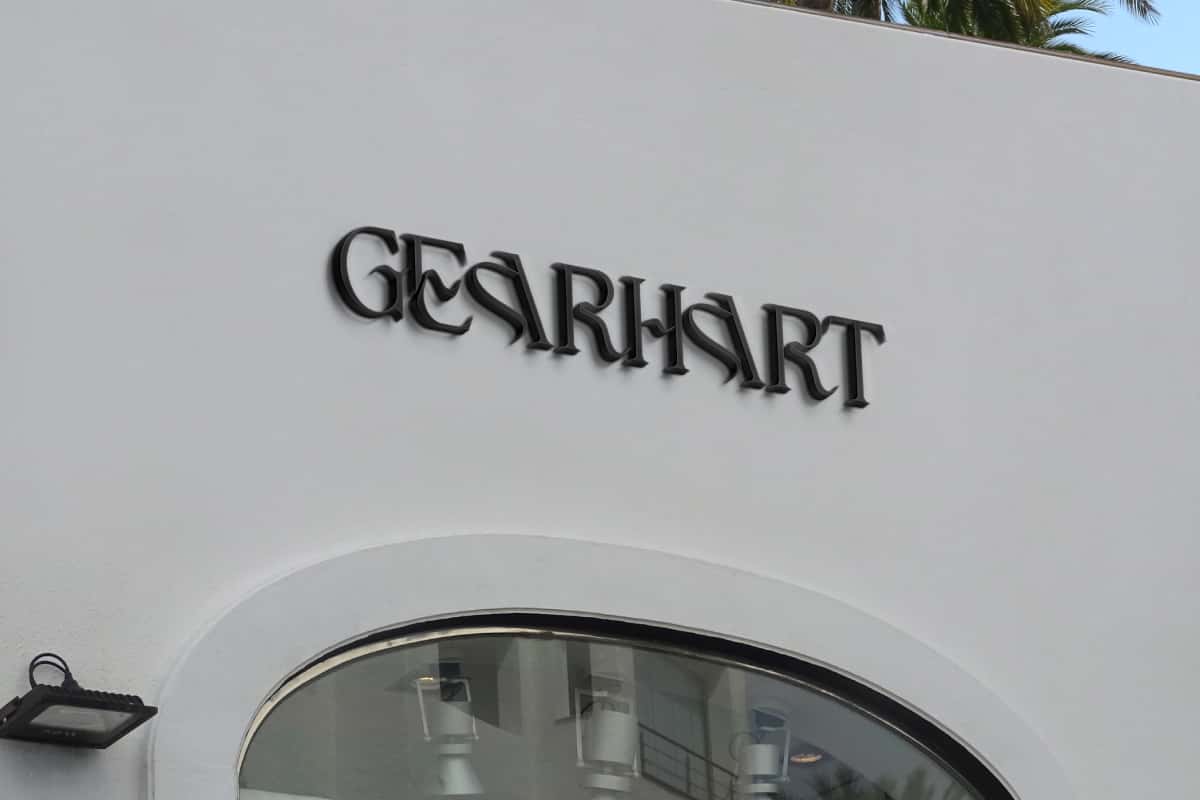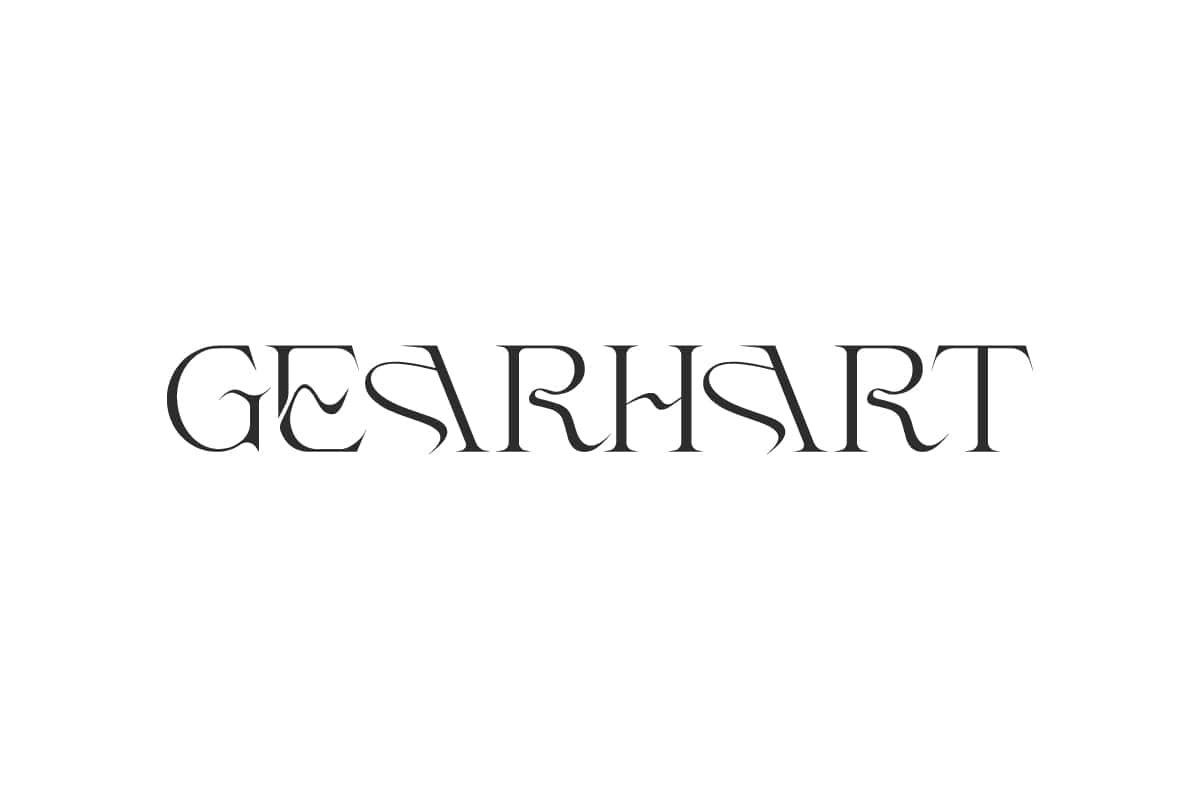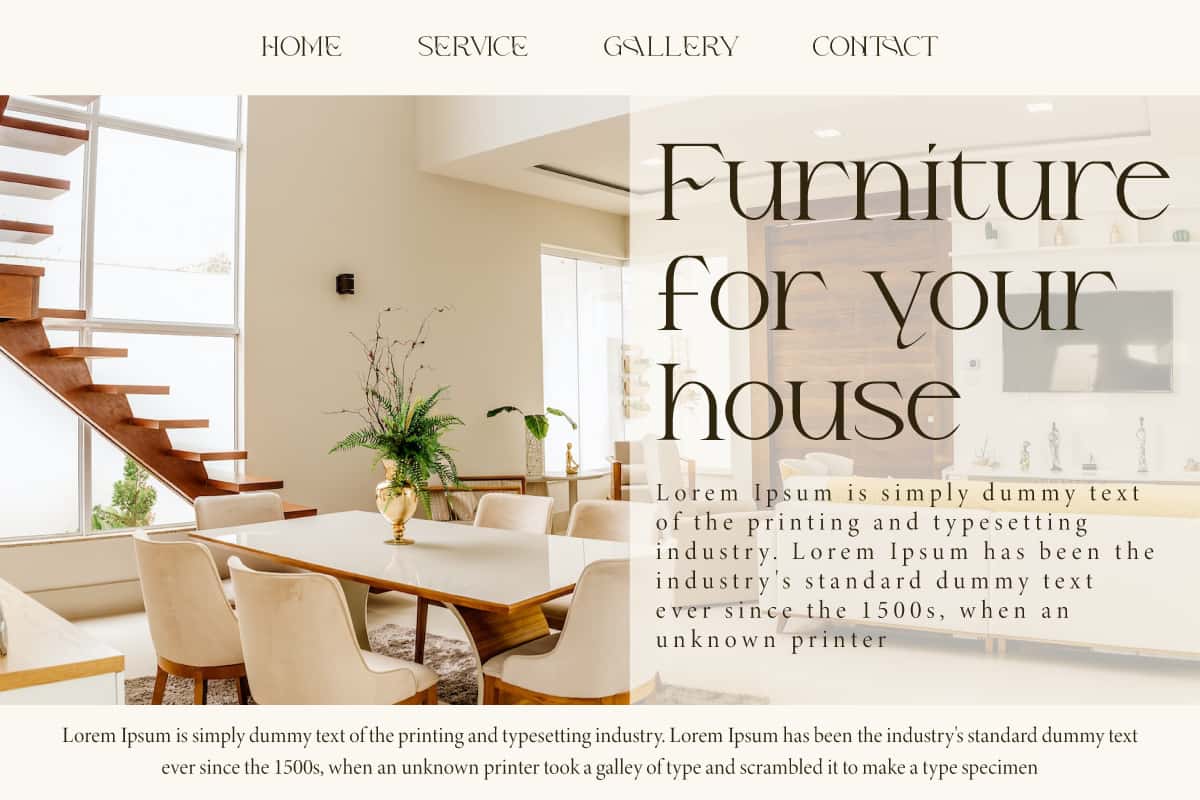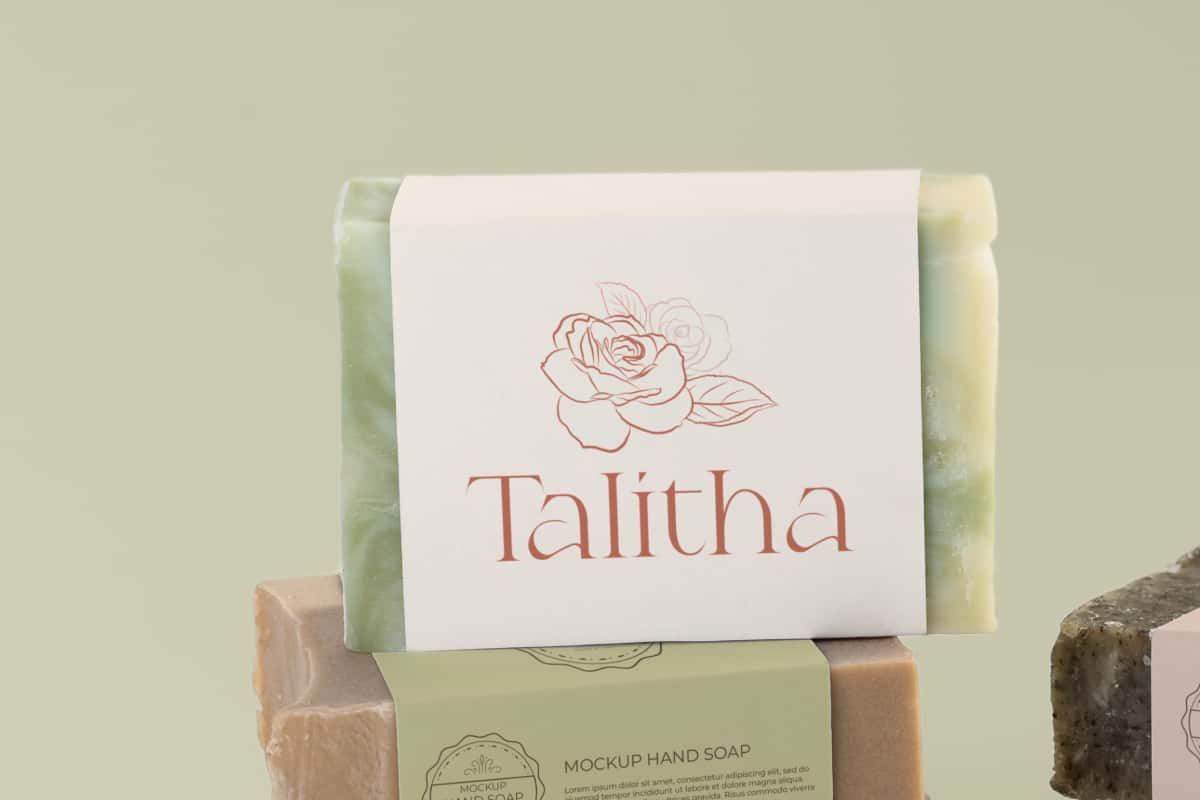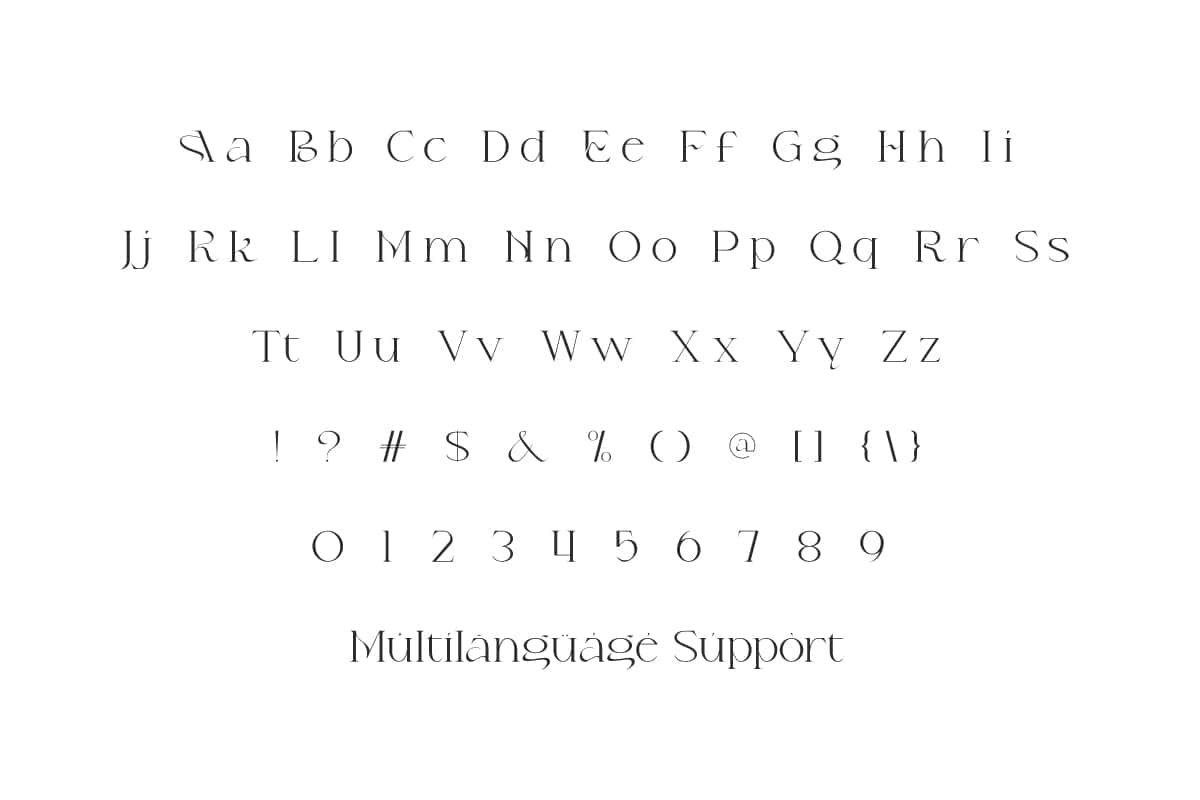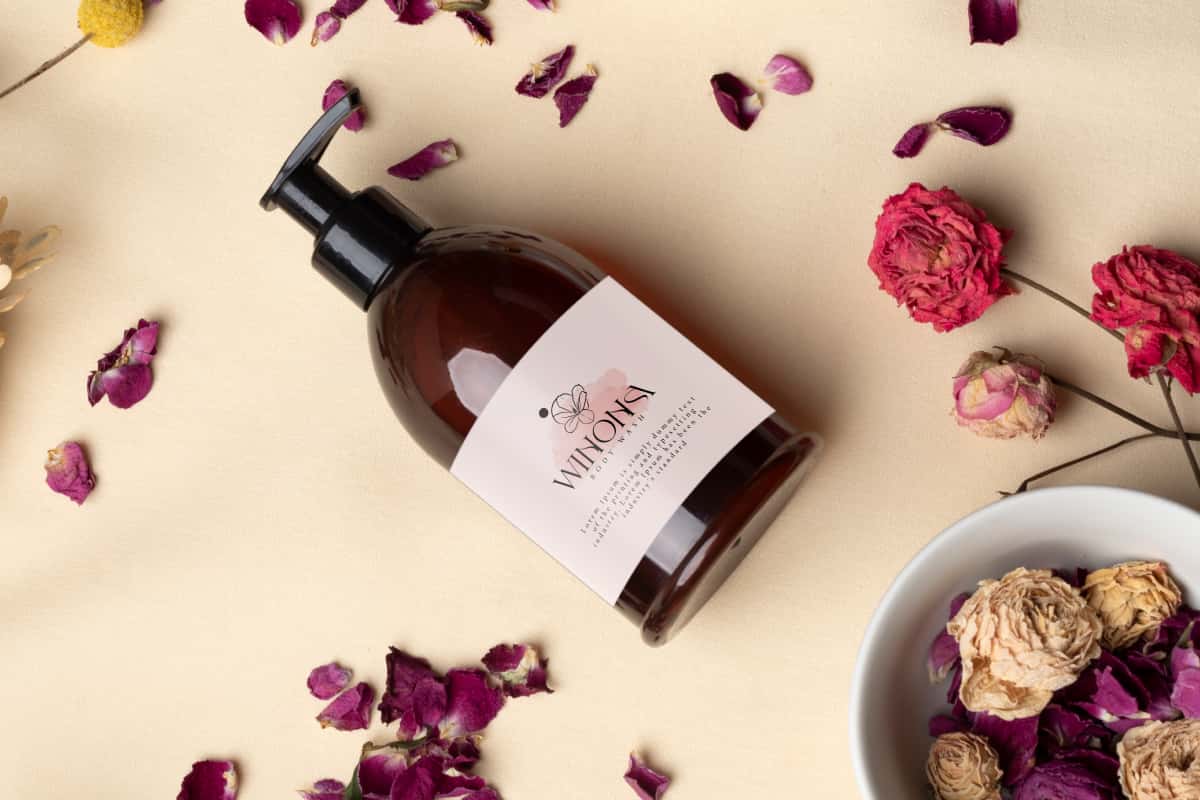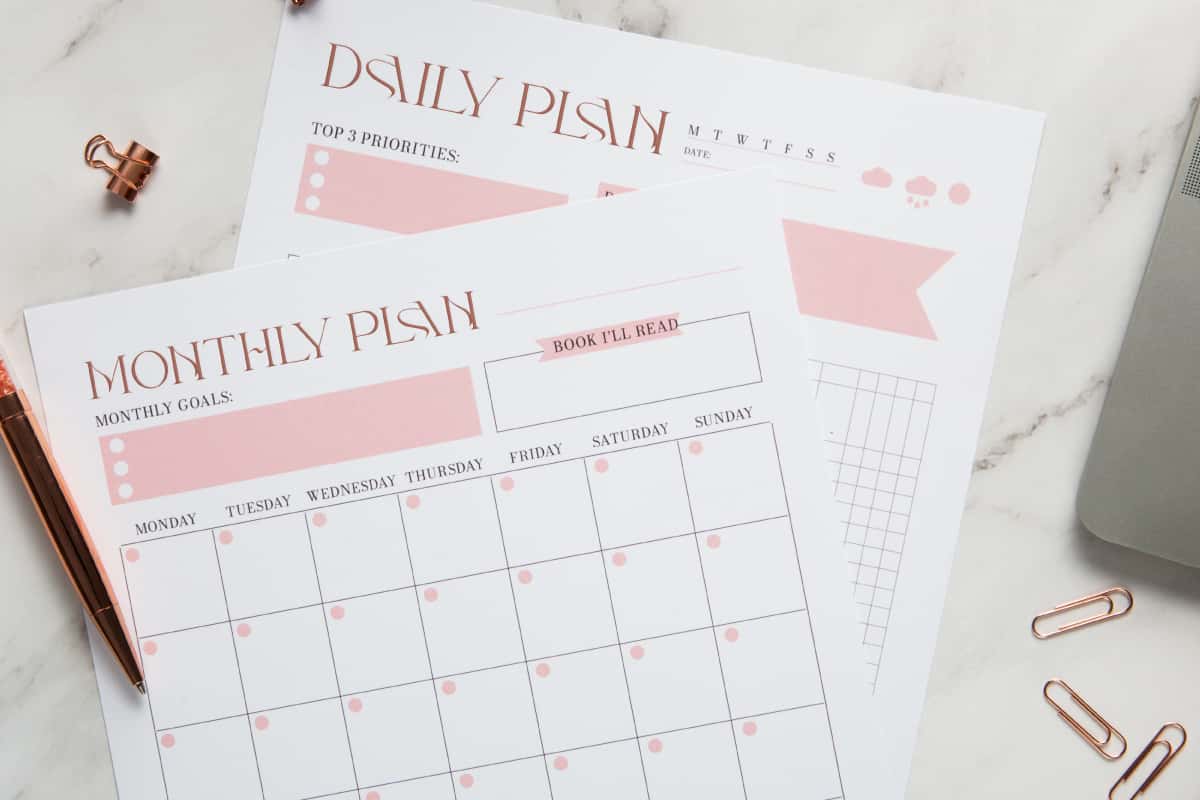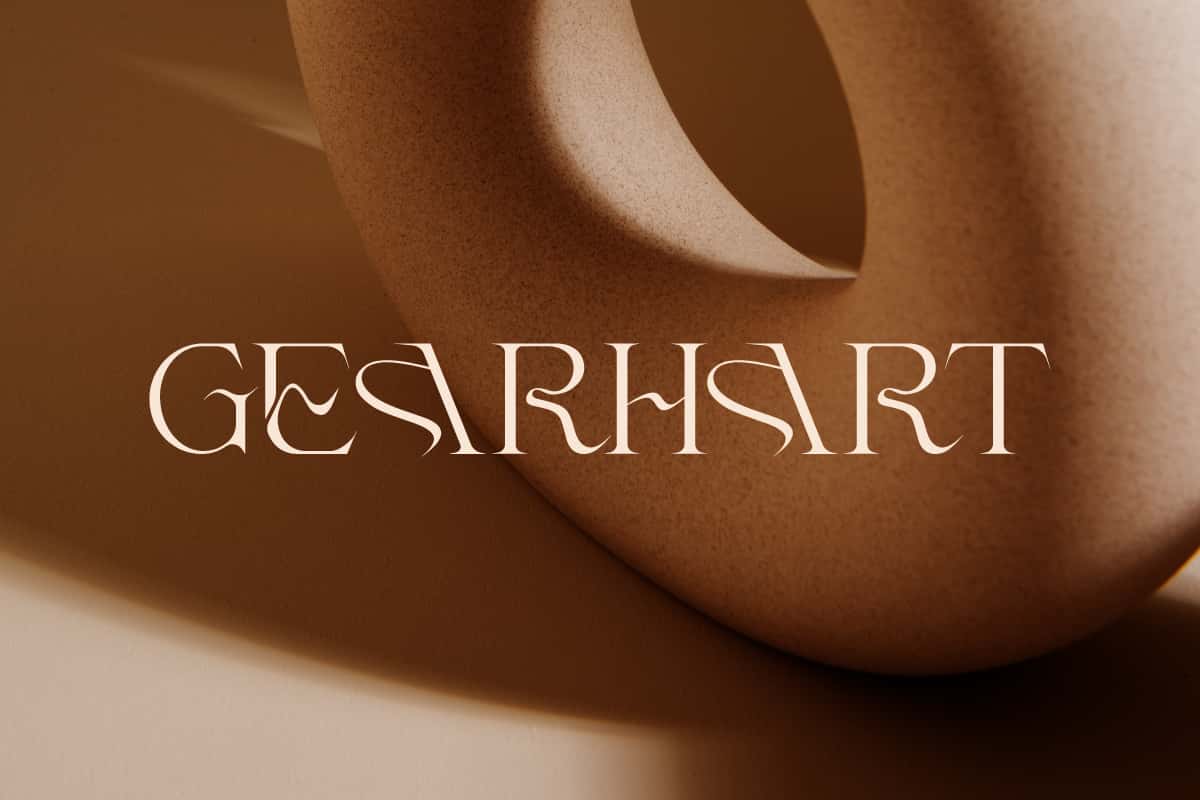
Gearhart Font is a stylish unique font that has harmony in elegance and uniqueness. It presents beautiful letters for quality and classy fonts that are suitable for any needs.
Gearhart Font is a stylish unusual serif display font with harmoniously curved letters forming a unique and elegant typography. Perfect for banners, blogs, brand logos, brochure, covers, flyers, headlines, invitations, labels, mockup, packaging, signage, stationery, templates, title, website, and many more.
Gearhart Font includes full set of Uppercase and Lowercase Basic Characters, Numbers, Punctuation and Symbols. It features sharp, clean serifs and letterforms with creative curved proportions, giving the font an innovative visual appeal aesthetic. Perfect for beauty clinic, cafes, cosmetology, corporate, exhibition, fashion, furniture, handicraft, interior design, restaurant, skincare, spa salon, and many more.